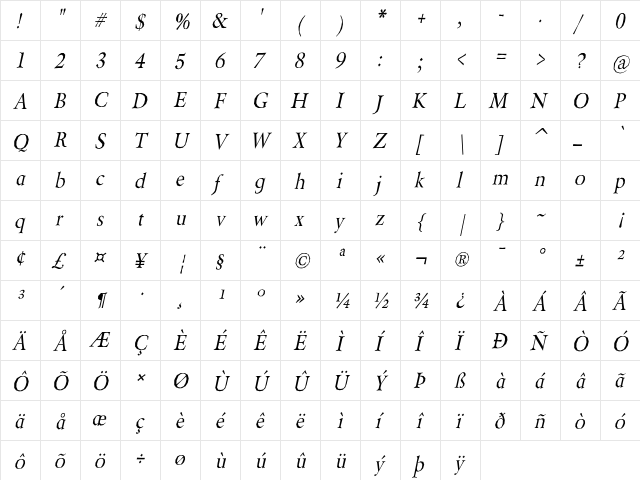
Berylium Italic
Design Context for Berylium Typeface
Berylium offers clean, dependable letterforms without strong stylistic allegiance, making it a practical choice for designers who need flexibility. Its italic angle brings a sense of urgency and motion to the letterforms.
Pro Tip: Use Berylium for emphasis, pull quotes, and subheadings where its slanted energy can add rhythm to the layout.